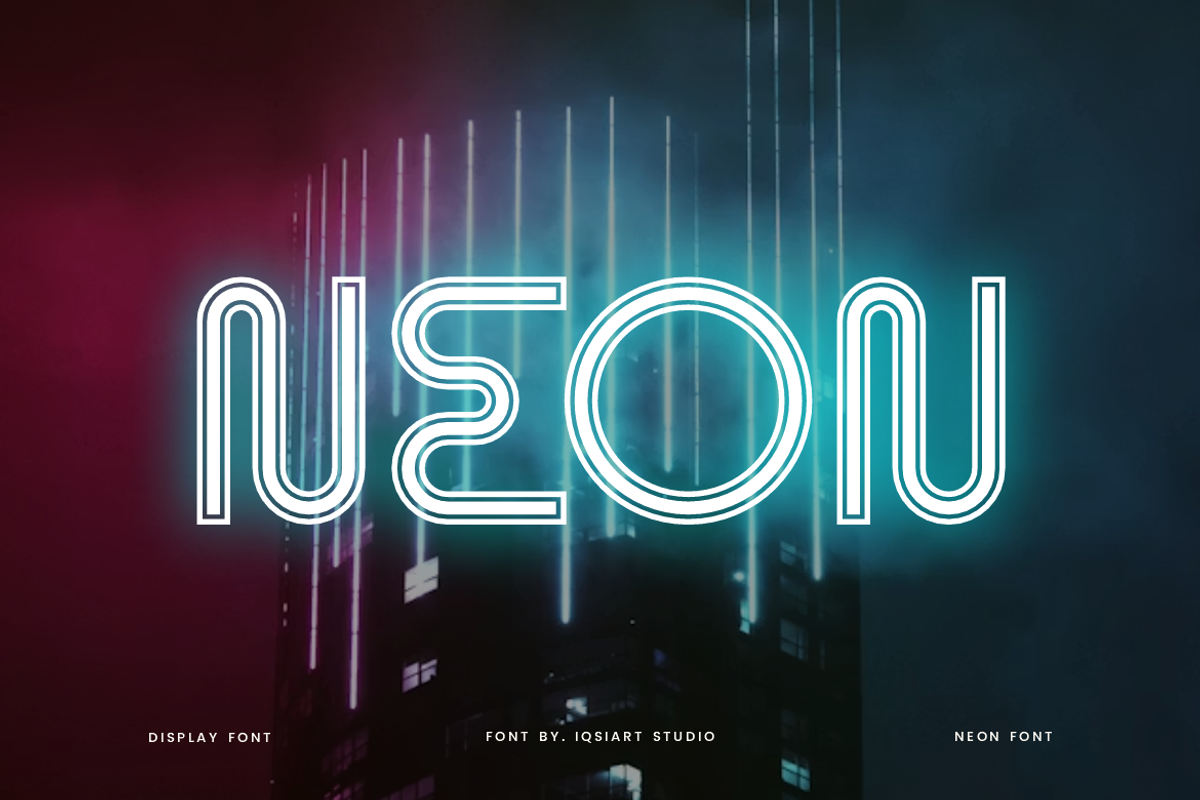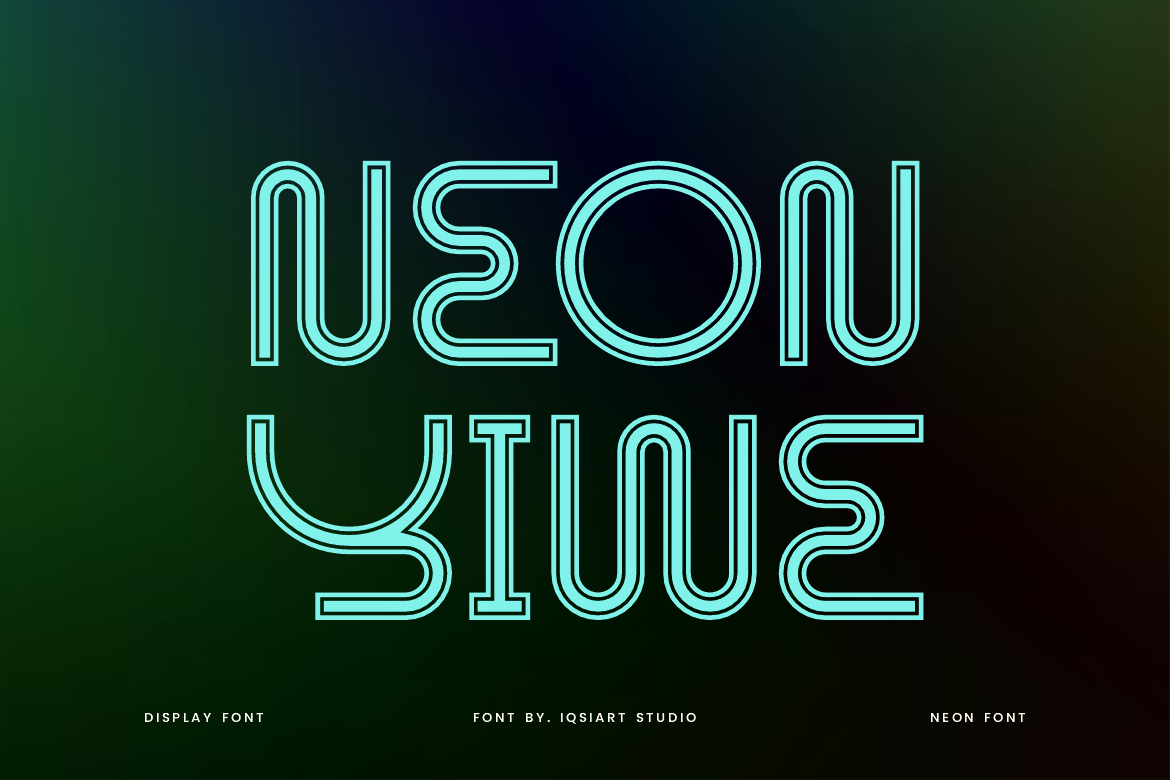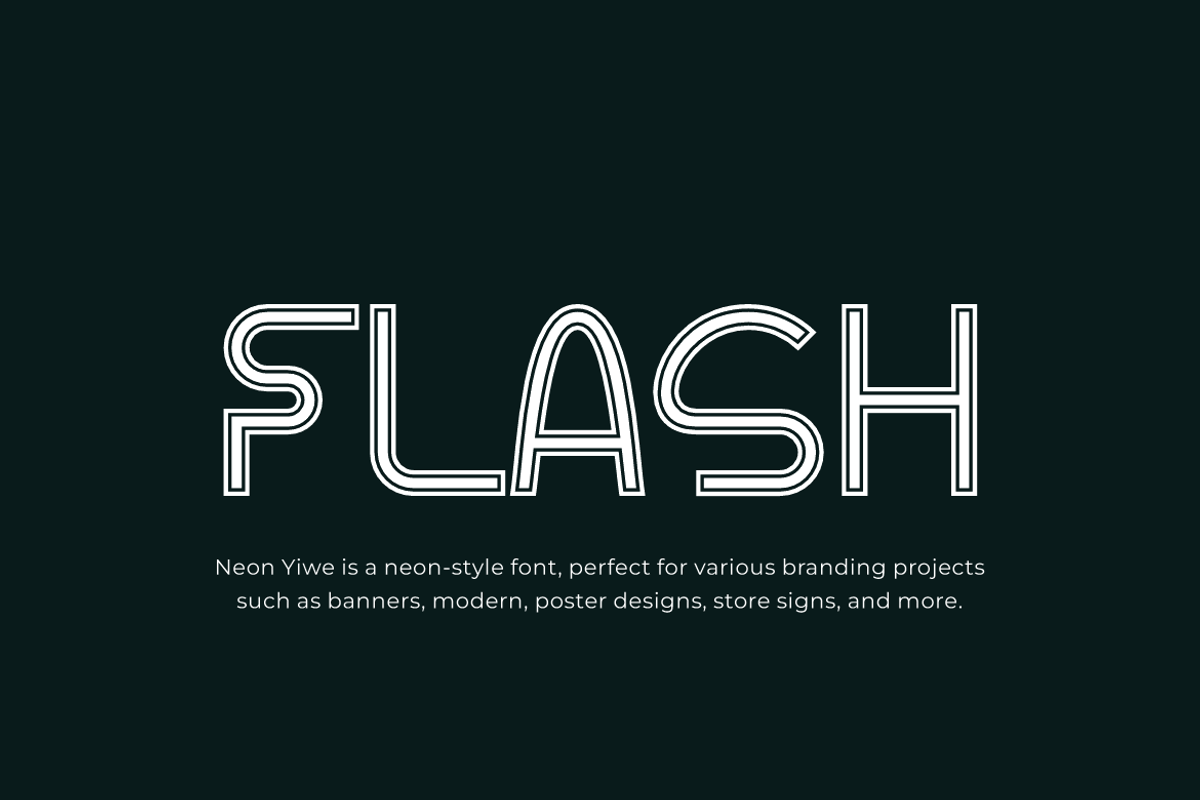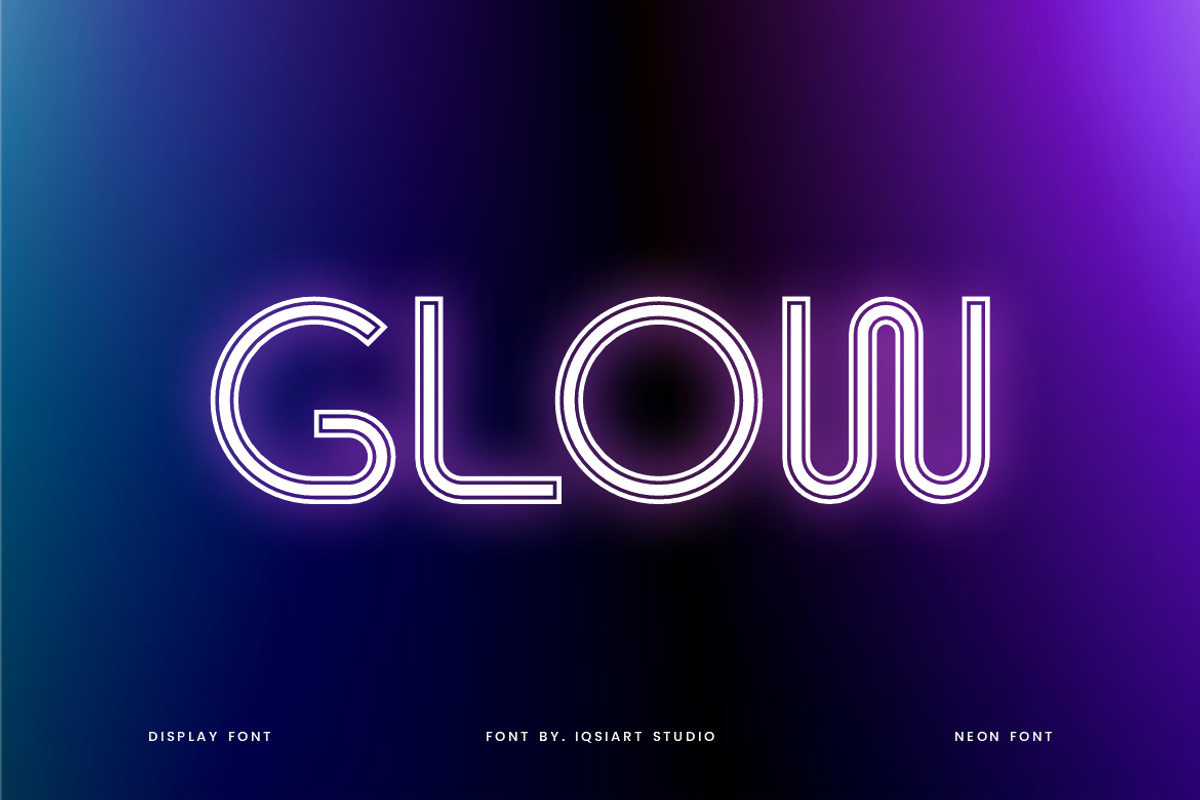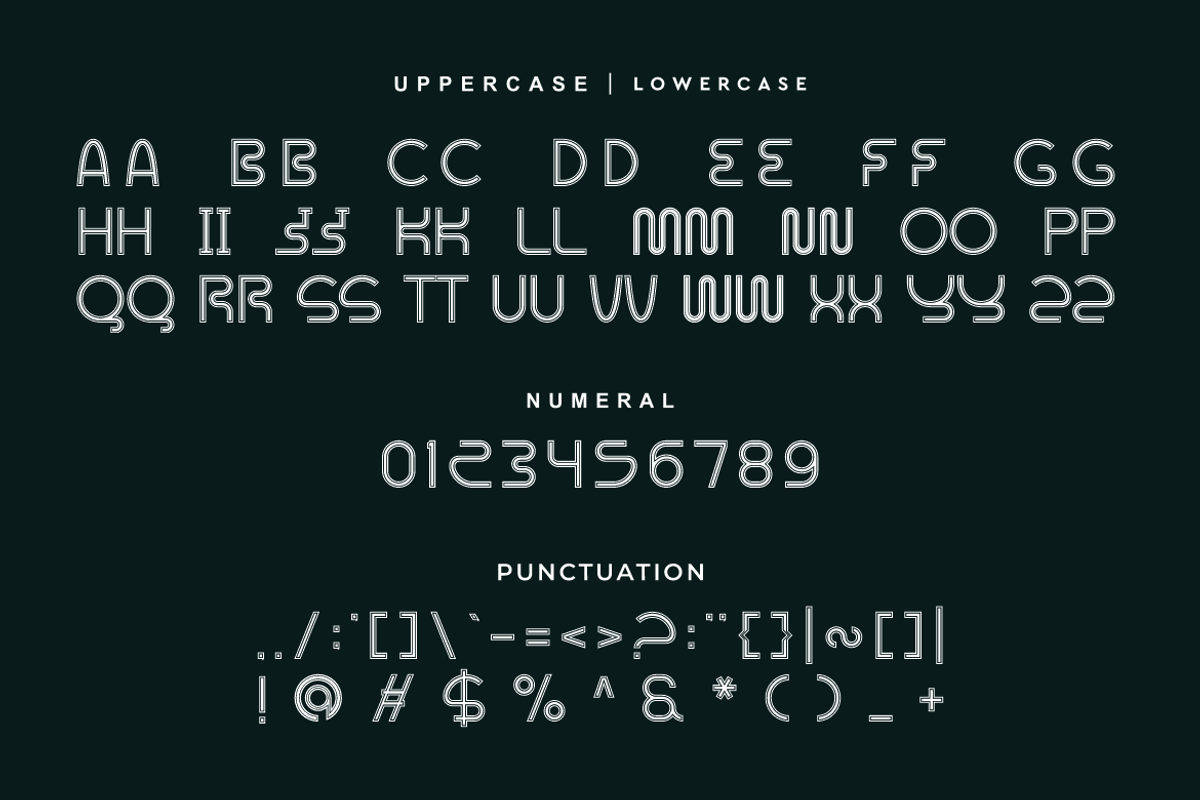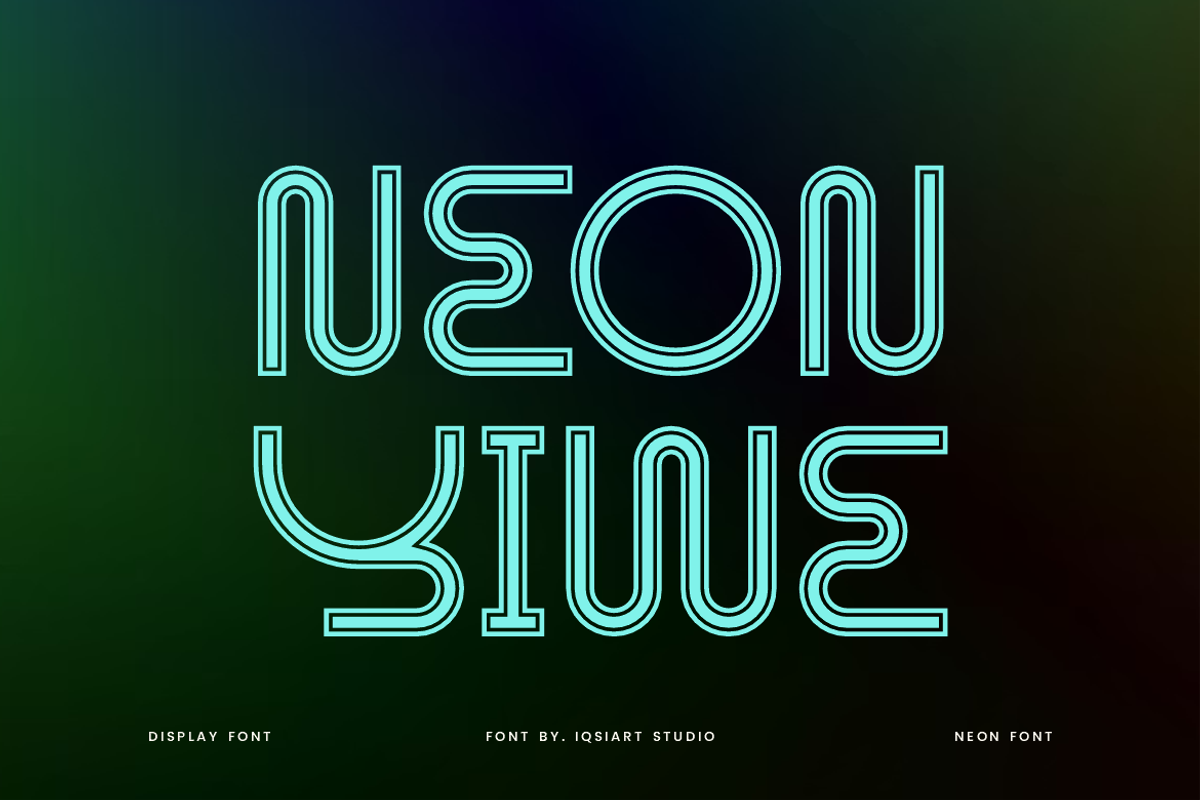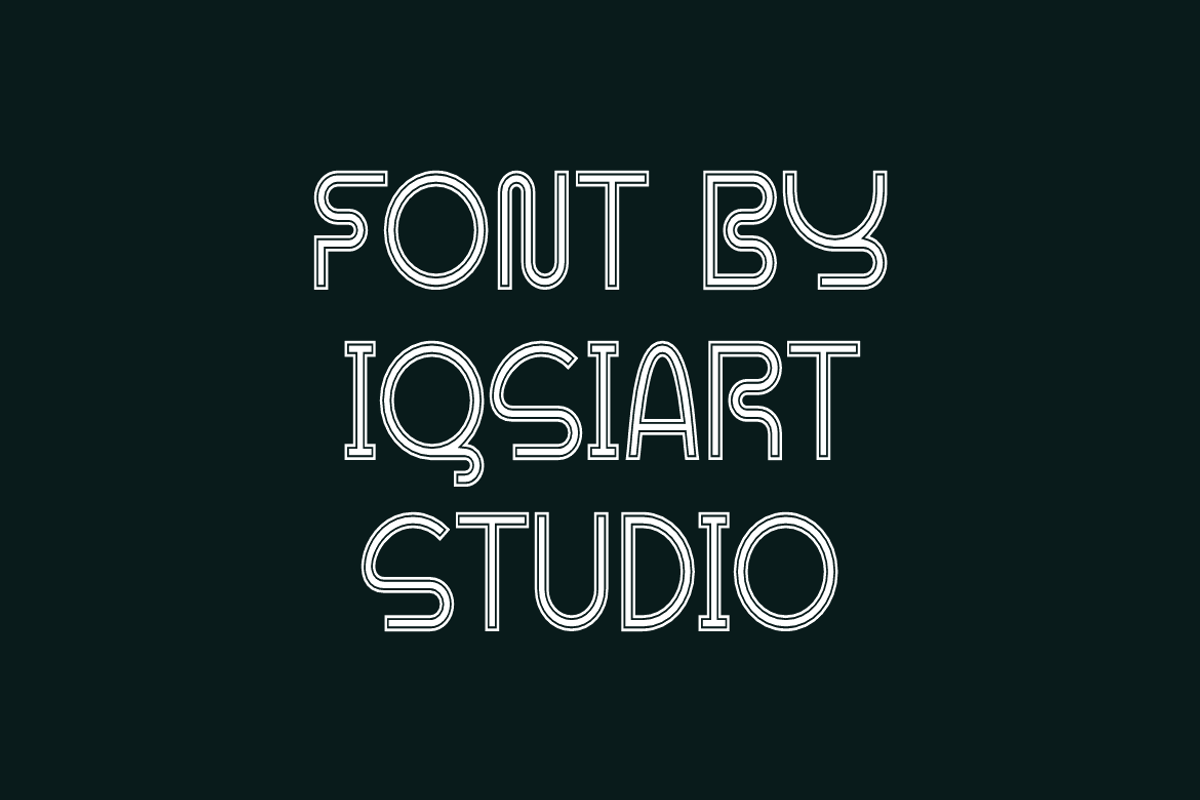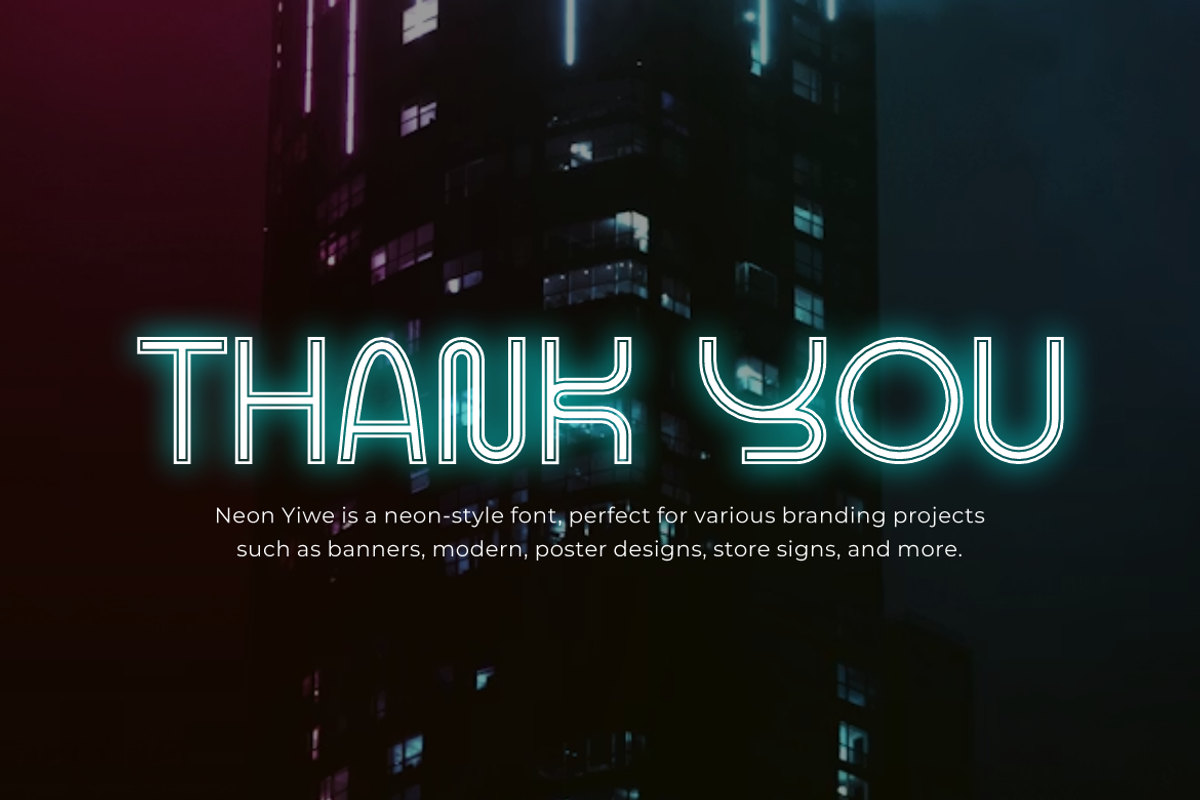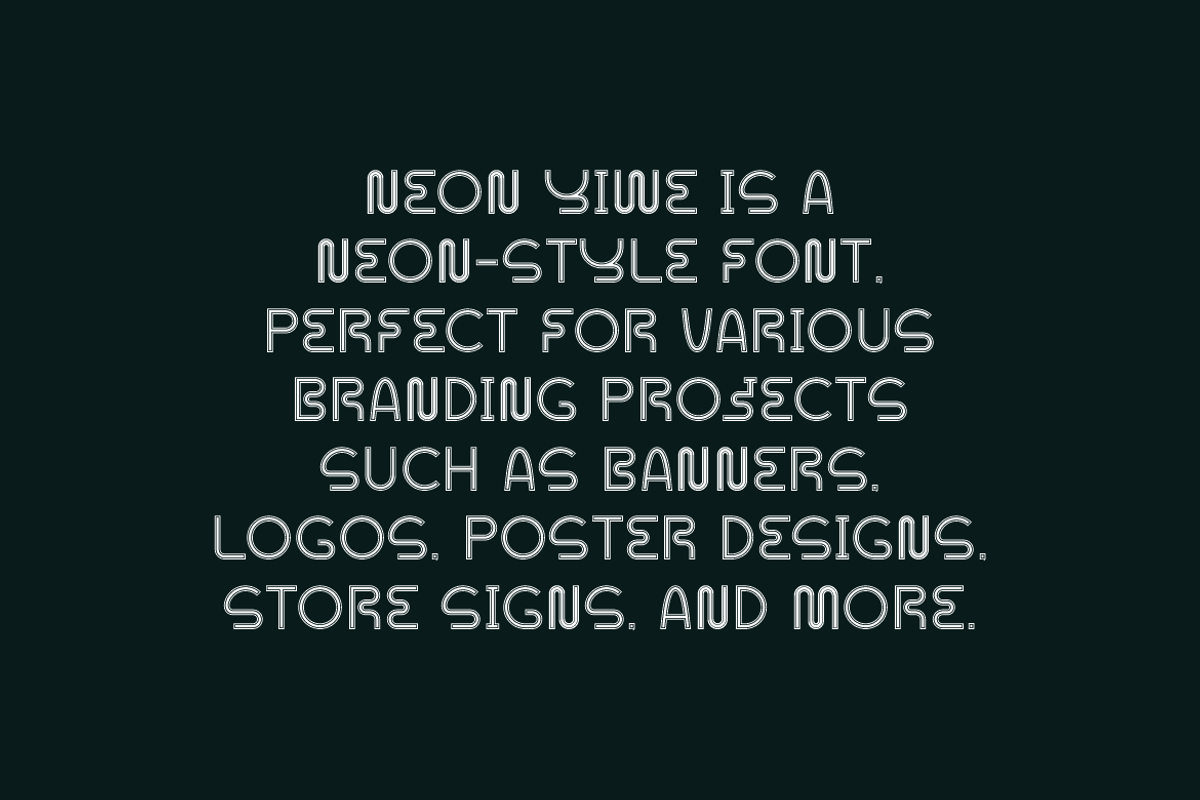
Neon Yiwe - Light Party Font
Neon Yiwe Font is a neon and authentic display typeface
that suits a variety of design needs. We offer a wide range of themes